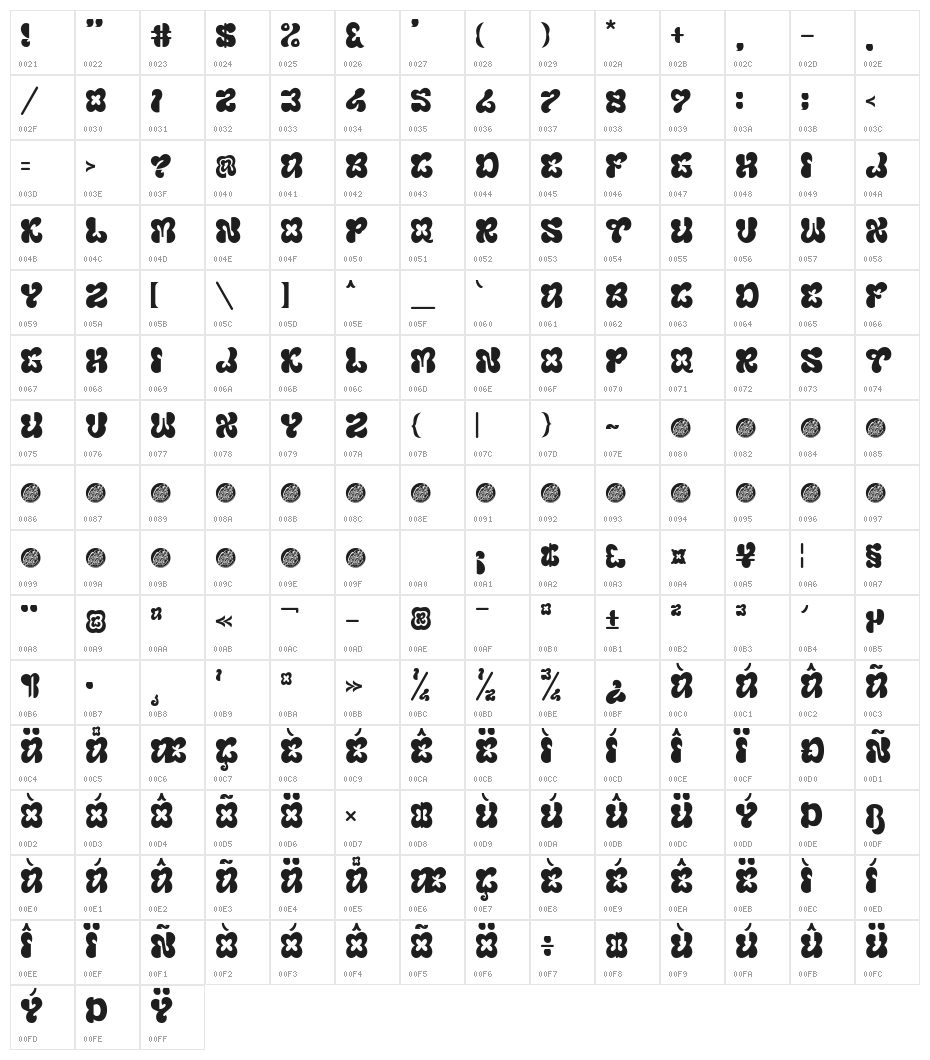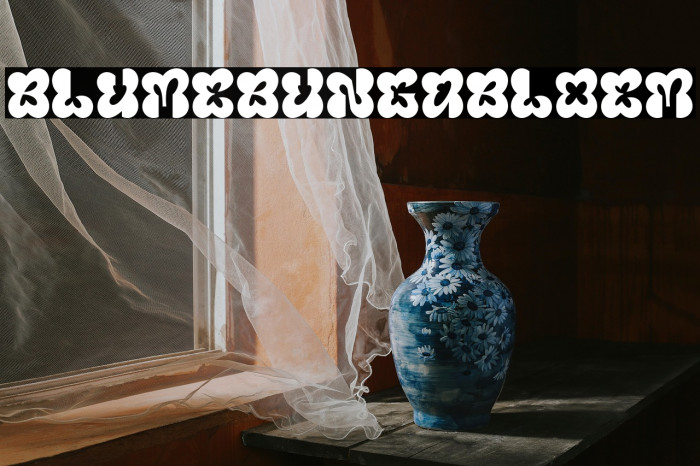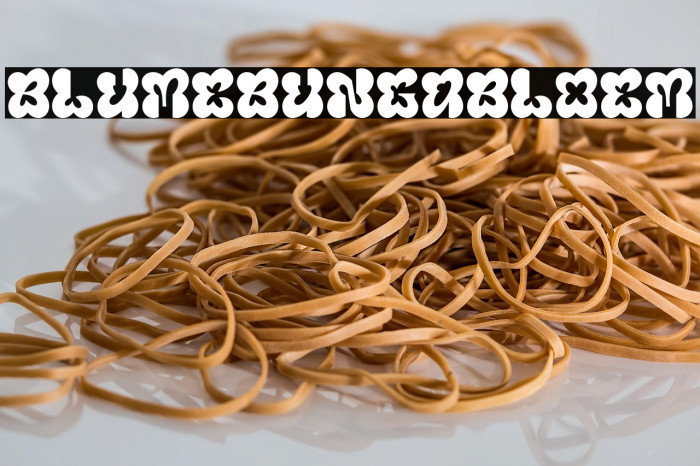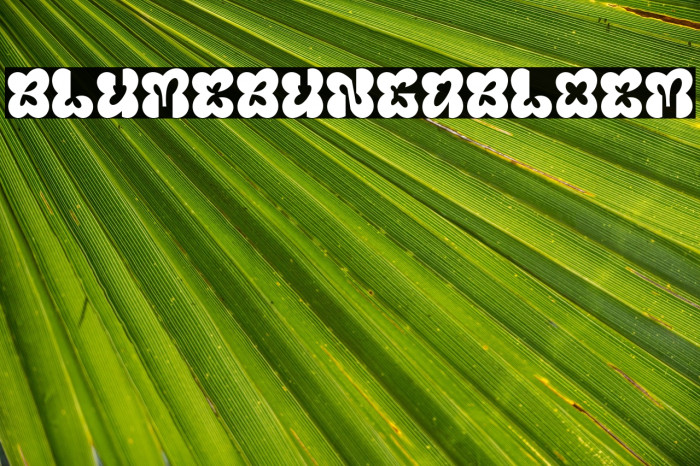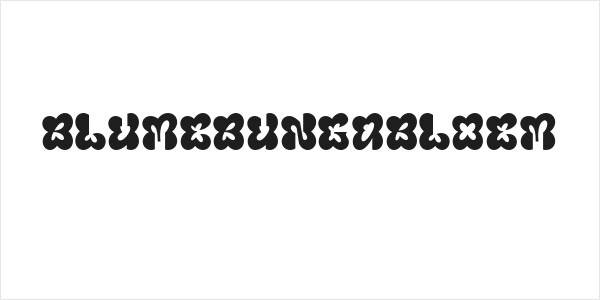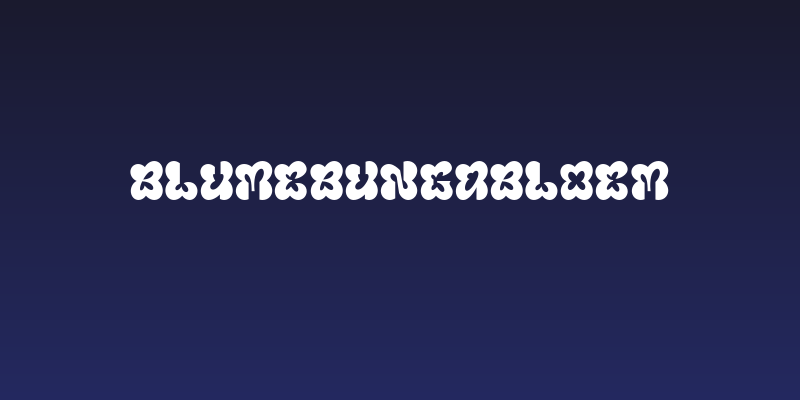
Blumebungabloem Font
Blumebungabloem Description
This font features a bold and playful design with a unique, decorative style. Each character is crafted with thick, rounded strokes that create a sense of fullness and vibrancy. The letters have a whimsical, almost floral appearance, with curves and loops that add to its charm. The numbers and special characters maintain this cohesive style, making the font suitable for eye-catching designs. The overall look is both modern and retro, offering a versatile option for creative projects.
| Overall Style | Playful, Retro, Decorative |
| Proposed Projects | Ideal for posters, branding, children's books, and playful graphic designs. |